Fonts, Fonts, Baby
I spoke about choosing a font that matches your genre and the feel of your cover. Let's talk a little about how many fonts you choose.
A book cover should have no more than two to three different fonts on it. The fonts should look appropriate together and compliment one another. As a general rule, you want to choose fonts that are similar in size and weight so when they're put together they don't look off. A reader may not understand why the cover looks off to them, but subconsciously they'll go "Eh" and move on. Humans are very visual, so if the image presented doesn't please them, they'll walk away.
There are times where you can mix fonts that aren't exactly the same weight, we've all done it, and it works. Be certain the look you end up with isn't too jarring when you go from one word to the next.
I threw together a cover we can use to showcase how fonts work, or in this case, don't work, together
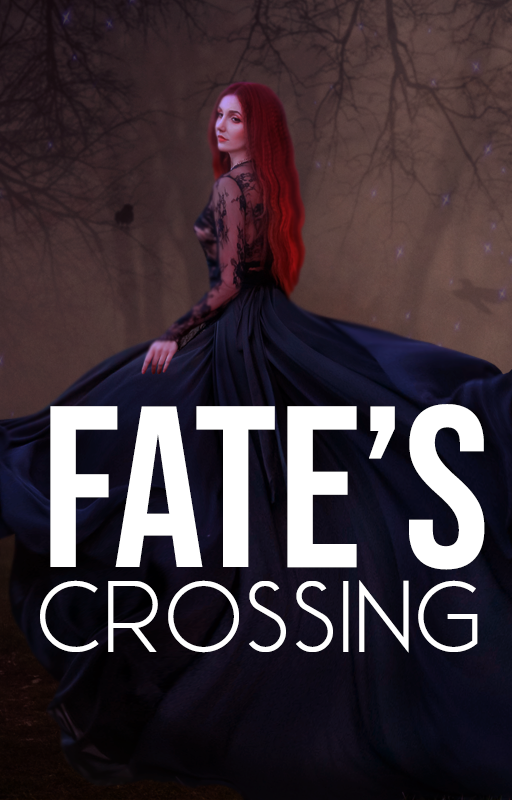
While this cover doesn't look awful, the large font leading into the much smaller one is a little jarring. The word Fate's is so huge your eyes are drawn to it and Crossing kind of gets lost. You want one word to naturally lead to the next. These font choices also don't give you any clue about the book's genre. The images are giving a paranormal or fantasy vibe, while those fonts give more of a thriller vibe.
If your book is published and ends up on the shelf of a book store what you're readers are probably going to see first is the spine. Which makes it as important as the front of your book. You have a tiny bit of space to grab a reader's attention with. They won't see your entire beautifully designed cover that your designer (or you) created. They'll see an inch or so of space on the spine of the book. So, use that space well.
The word Crossing ends up much larger so it will be visible when printed. On the cover, Fate's is larger, yet on the spine Crossing is. It shifts focus from one word to the other and creates a disconnect between the cover and the spin. It's one that might have your potential reader placing the book back on the shelf and moving on to a different book. Readers may not understand typography, how fonts are placed and sized, but they know when something is off and they don't like whatever it is. I placed the lines to give you an idea of how big the spine is since it isn't wrapped around a book, I used an actual template from Amazon to showcase where the spine is placed and how big it is. This template is for a 6X9 sized book with a spine width of one inch (25.4mm). Remember the less pages your book is the smaller space you have to use for your spine and the smaller your text will be.
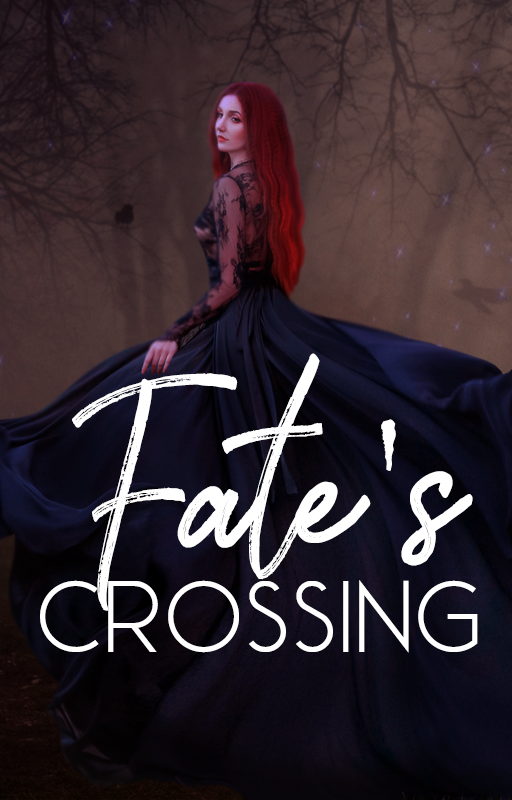
These two fonts don't work well together because the font used for Fate's is a distressed/eroded font while the one for Crossing isn't. They end up looking awkward together.
Be careful when choosing your fonts and if you aren't sure if something is looking right, ask a few people who you trust to give you an honest opinion. I have two people I throw my designs at and ask, "Does this look right to you?" Both of them will tell me if they don't like something about the design. One of them is a designer while the other is a reader. I get both sides of things when I ask them for help.
Let's take a quick look at what happens if you use a multitude of fonts.
This cover has zero identity. Is it romance, thriller, fantasy? We have fonts that convey multiple genres. Let's be honest, it's ugly. I've seen designers do things like this. Whether it's because they think it's fancy or simply enjoy using as many fonts as they can to show off the fonts they have access too, I honestly don't know. I've seen covers with as many as six or seven different fonts.
Design isn't about showing off as many things as you can in a single design. It's about making a final product that is pleasing to the eye. Something people want to look at. If you begin throwing everything you have at your canvas you end up looking like an armature instead of a practiced designer.
Placing your text appropriately, choosing complimentary fonts, and making certain it all looks good together takes practice. Throwing a crapload of fonts and adding multiple effects to it ruins your look. In most cases, simple is the best end result.